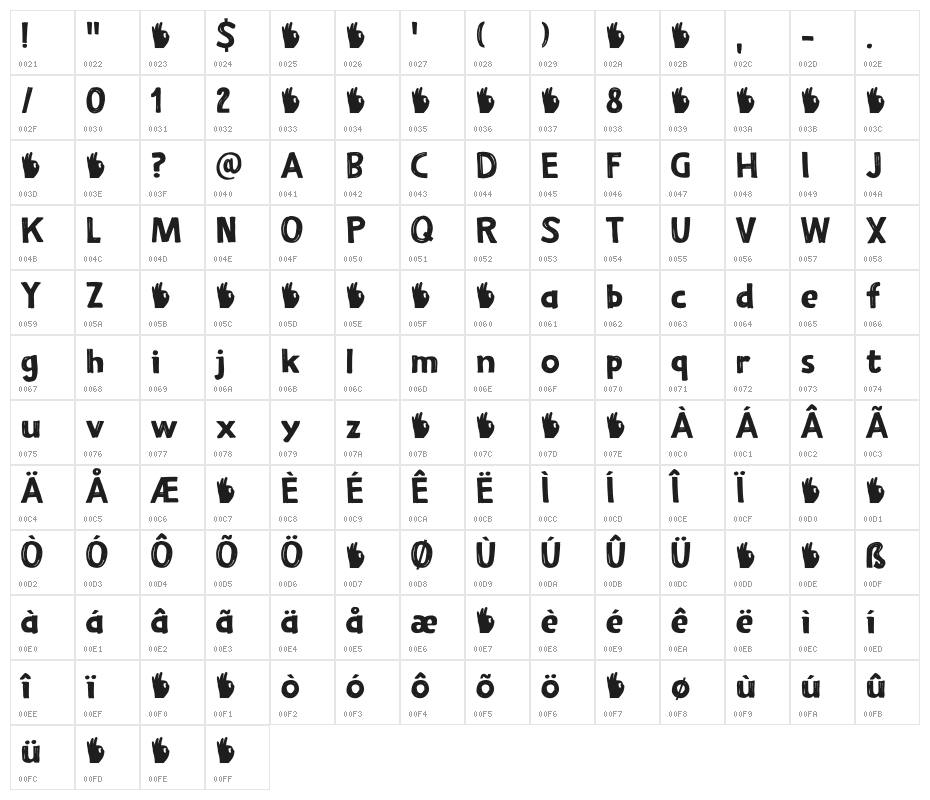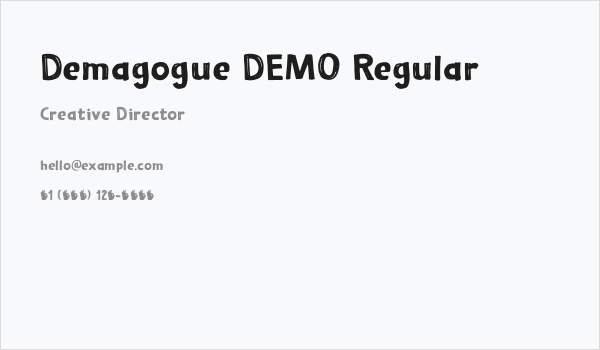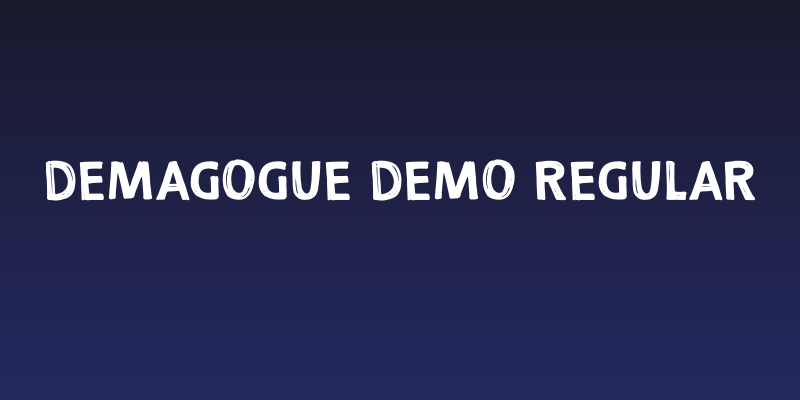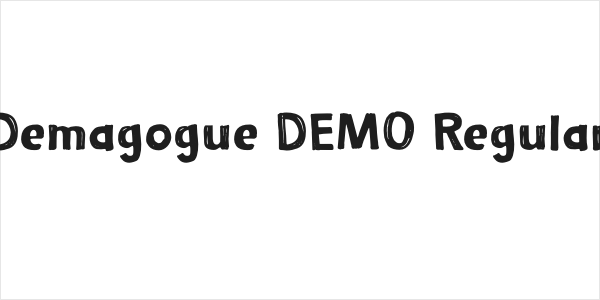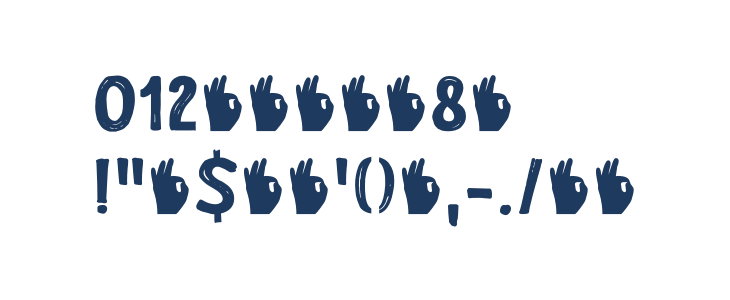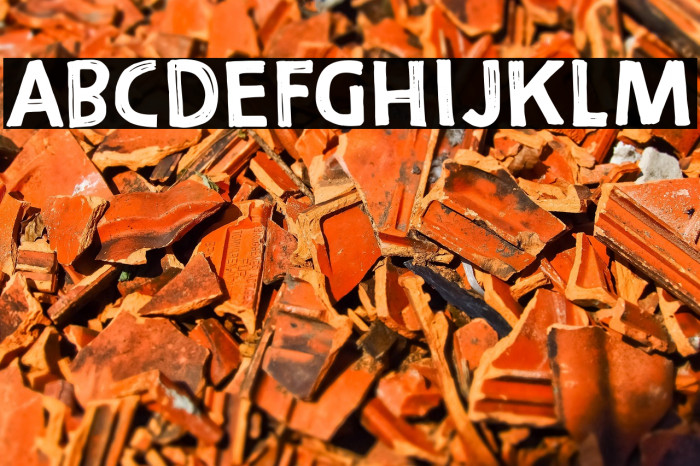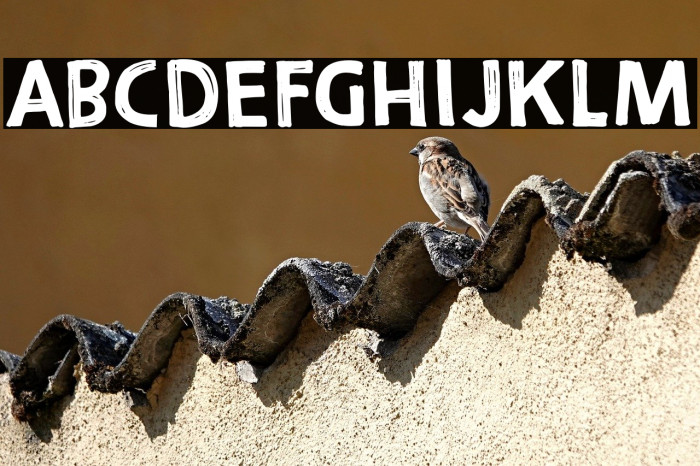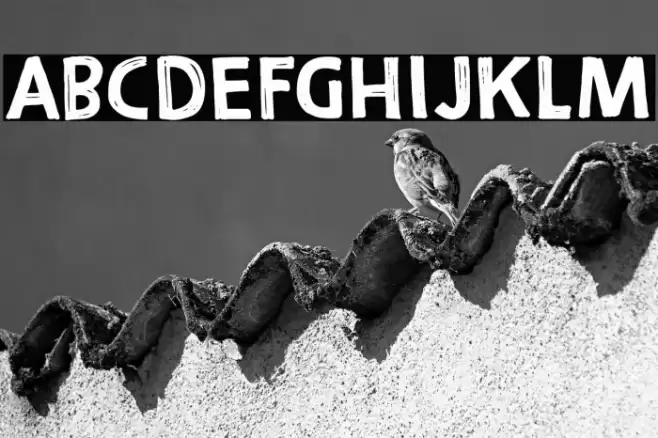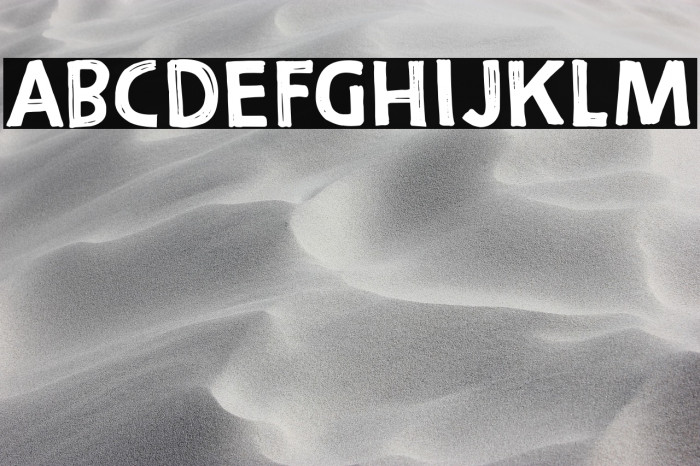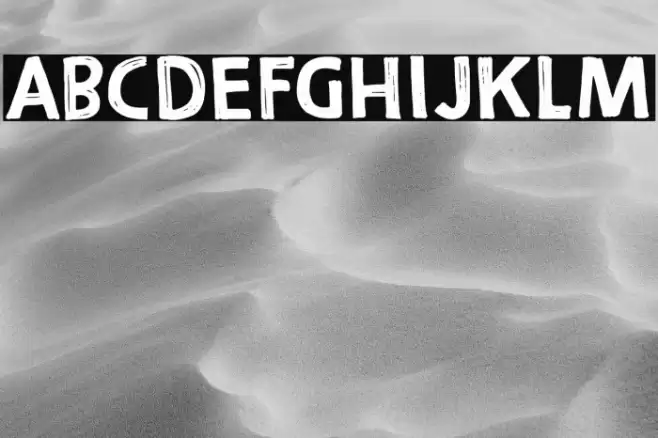
Demagogue DEMO Regular Font
Demagogue DEMO Regular Description
This font features a bold, hand-drawn style with a playful and artistic flair. The characters are slightly irregular, giving them a unique and organic appearance. The uppercase and lowercase letters maintain a consistent style, with thick strokes and rounded edges that suggest a casual, friendly tone. The numbers and special characters follow the same design principles, ensuring a cohesive look across all glyphs. This font is ideal for projects that require a touch of creativity and informality, such as posters, children's books, or branding for artistic ventures.
| Proposed Projects | Ideal for posters, children's books, artistic branding, and creative projects. |